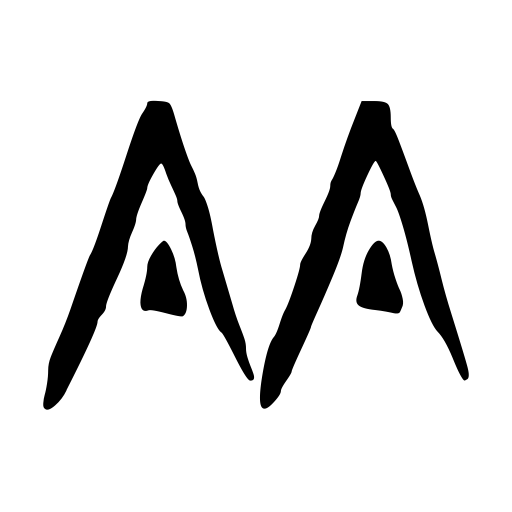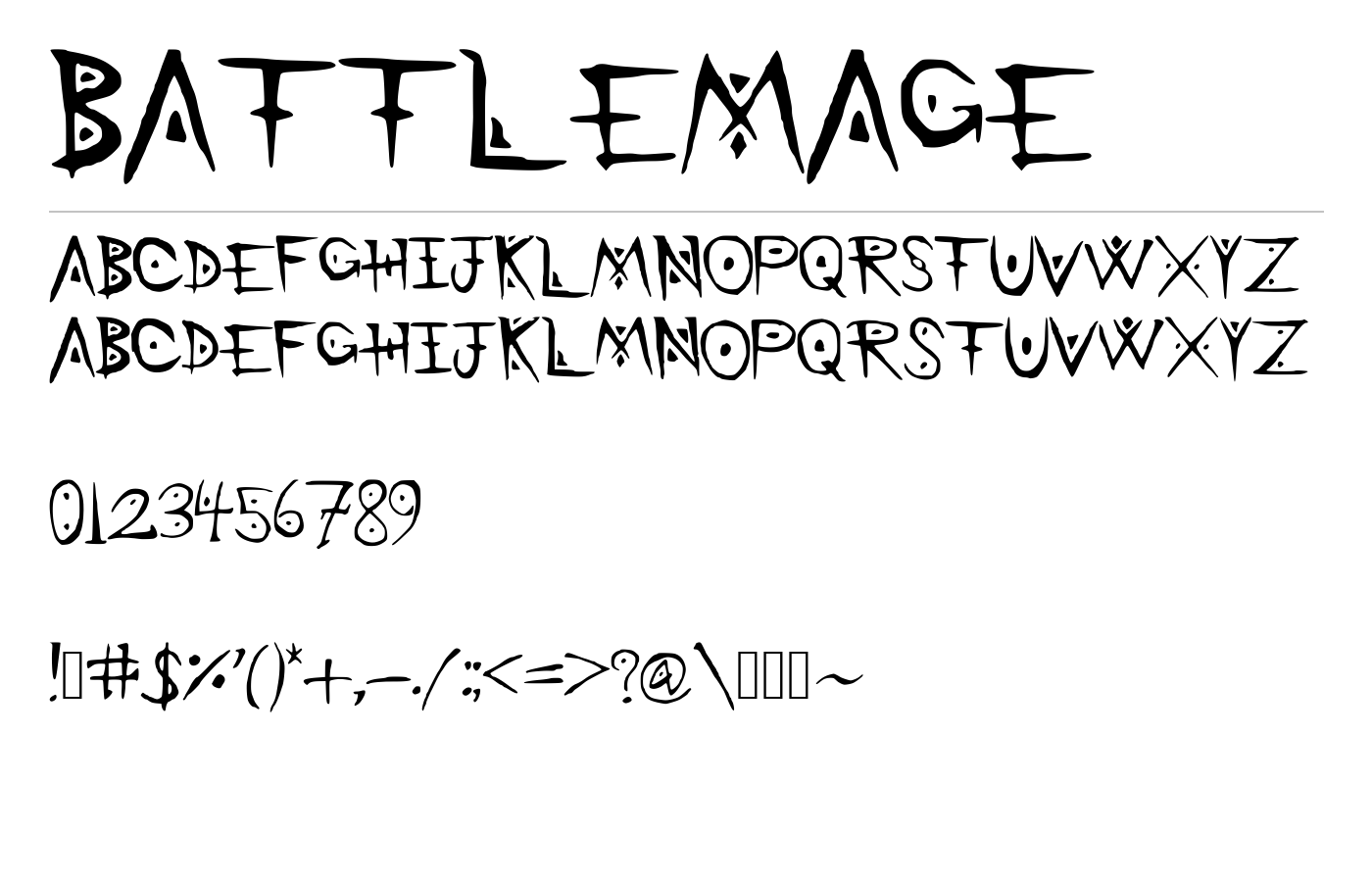
BattleMage is a distinctive, handcrafted display font with a bold, irregular style that evokes a mystical and adventurous vibe. Its sharp, pointed strokes and uneven forms create a dynamic, energetic feel perfect for fantasy, gaming, or themed branding where a dramatic and unique personality is desired. This font works best in headlines, logos, and posters that need to capture attention with a touch of magical intensity.
BattleMage Font
About BattleMage Font